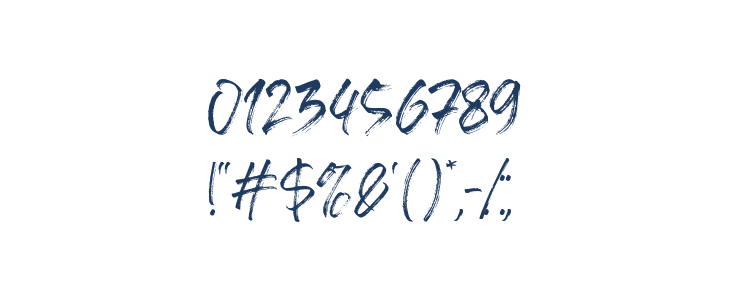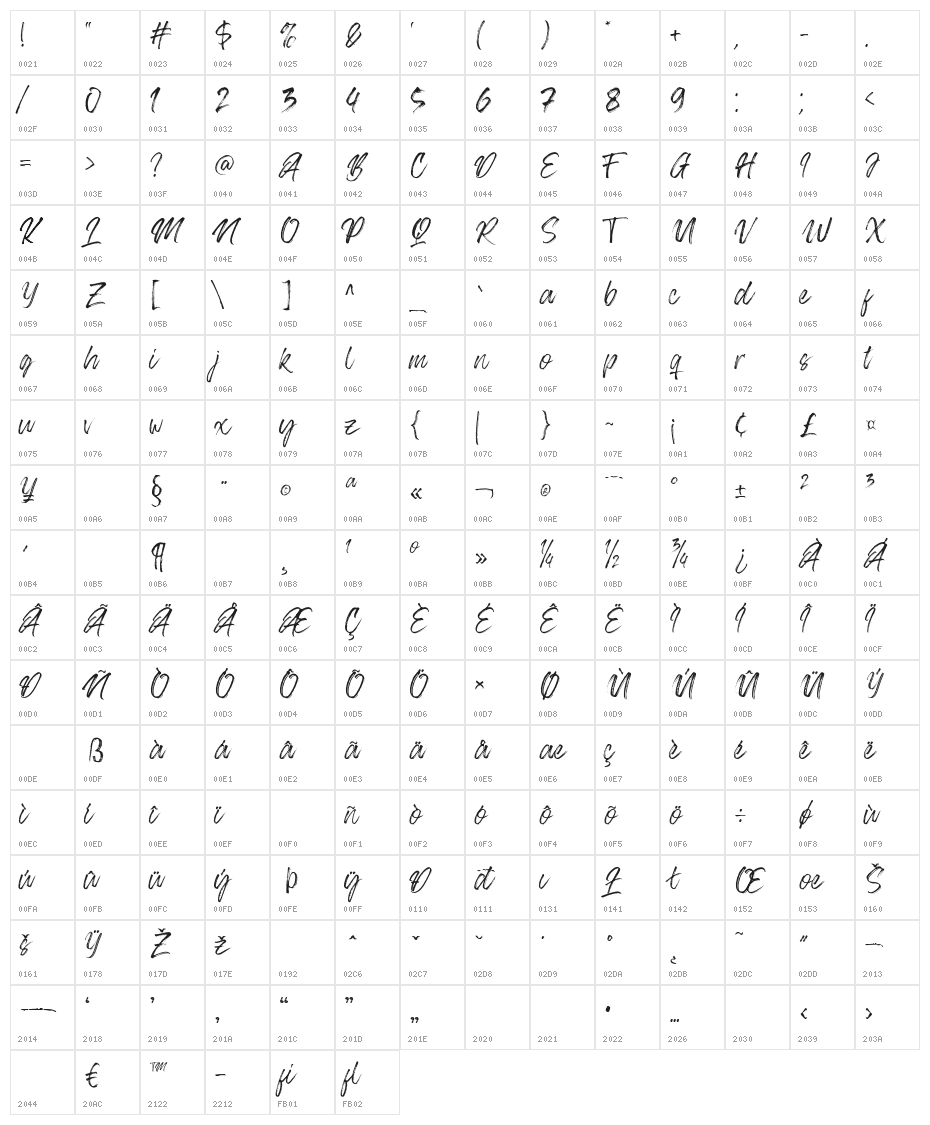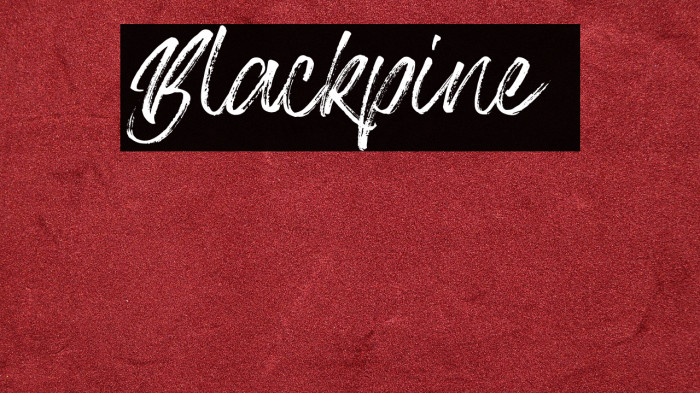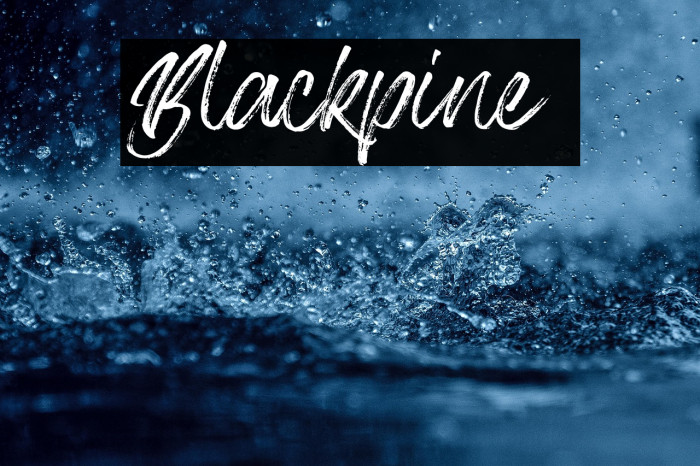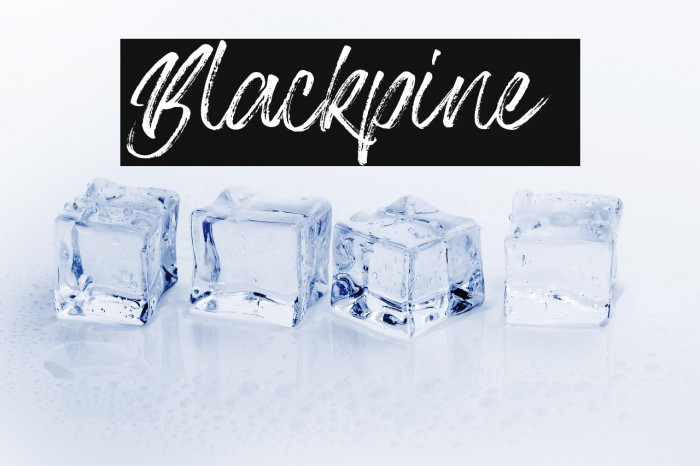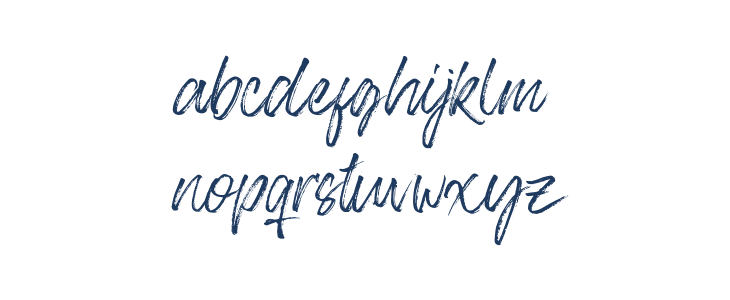
Blackpine Font
Blackpine Description
This font exudes a dynamic and expressive style, characterized by its brush-like strokes and fluid, cursive forms. The letters are crafted with a sense of motion and energy, giving each character a unique and artistic flair. The uppercase and lowercase letters maintain a consistent style, with bold, sweeping lines that suggest a handcrafted touch. The numbers and special characters follow the same aesthetic, ensuring a cohesive look across all elements. This font is perfect for projects that require a personal and artistic touch, such as invitations, posters, or branding materials. Its bold strokes and high contrast make it stand out, while the natural flow of the letters adds a sense of elegance and sophistication.
| Proposed Projects | Ideal for invitations, posters, branding, and artistic projects. |